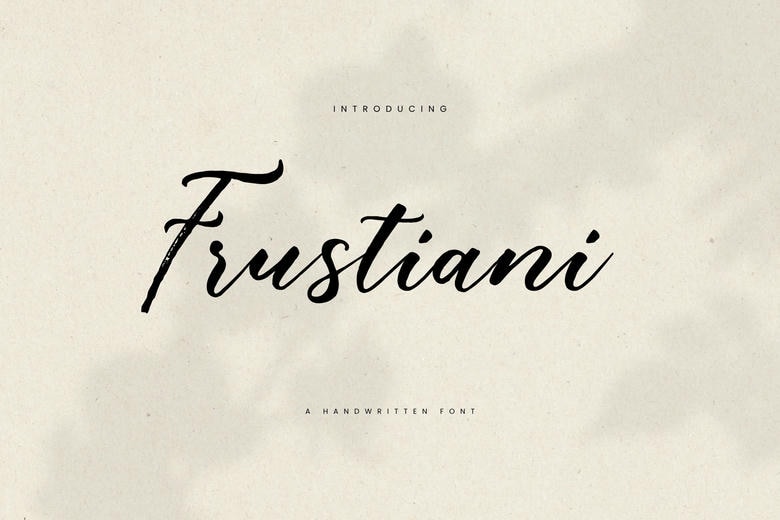
Frustiani Font
Frustiani is an elegant and stylish script font, perfect for designs that need a feminine, romantic, or artistic feel. Its smooth, curved handwritten style adds a classic touch.
The soft, natural lines give it a friendly and attractive look. It works well for wedding invitations, greeting cards, logos, branding, quotes, and decorative posters.
Frustiani brings a warm, graceful, and personal feel, which is why many designers choose it to make a lasting impression.
Frustiani Handwritten Script Font